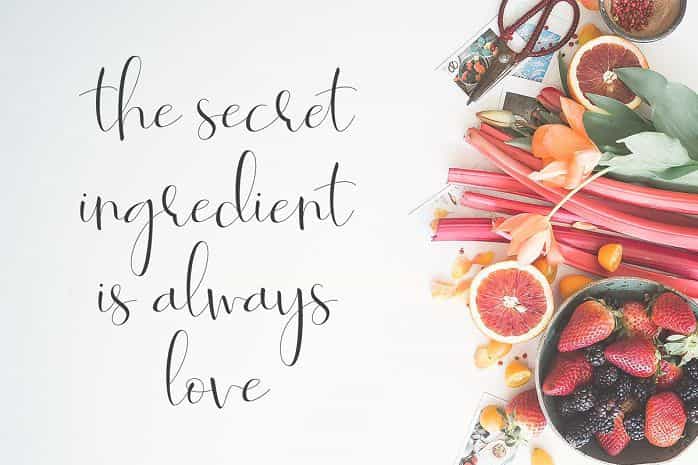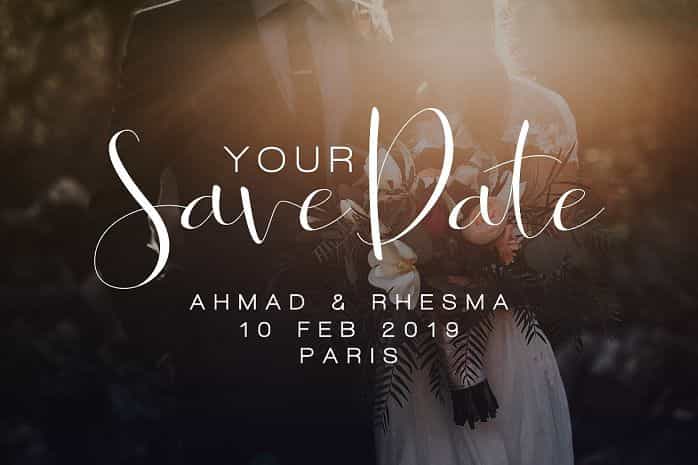
Introducing Roselyne Font. Roselyne is a contemporary calligraphy font with hand written, modern and sophisticated strokes. It is the best for branding, wedding invites, greeting cards and any others.